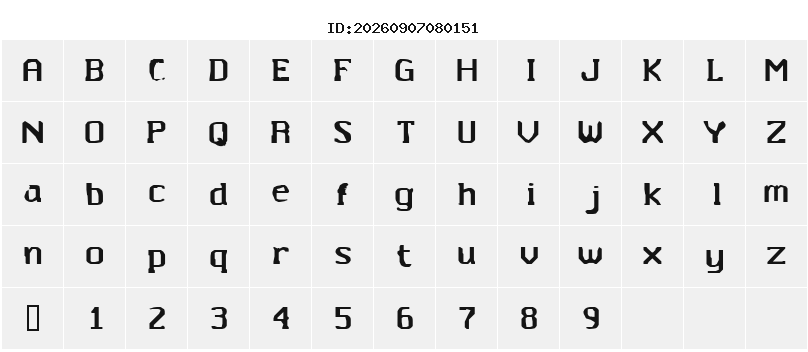
About Untitted.ttf
Untitted.ttf is a modern, elegant sans-serif font designed for ultimate readability and visual harmony. Perfect for branding, headlines, web design, and print materials.